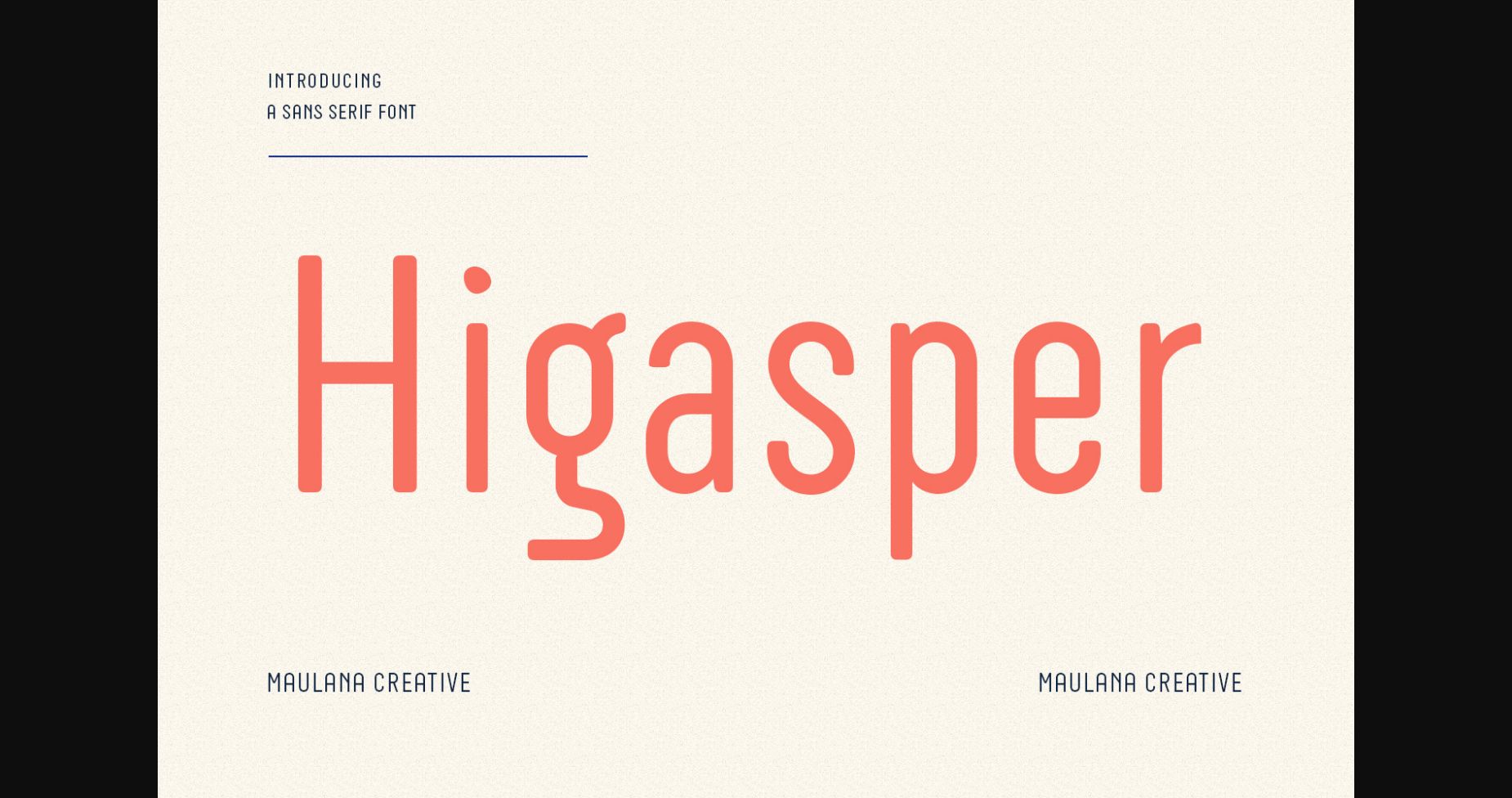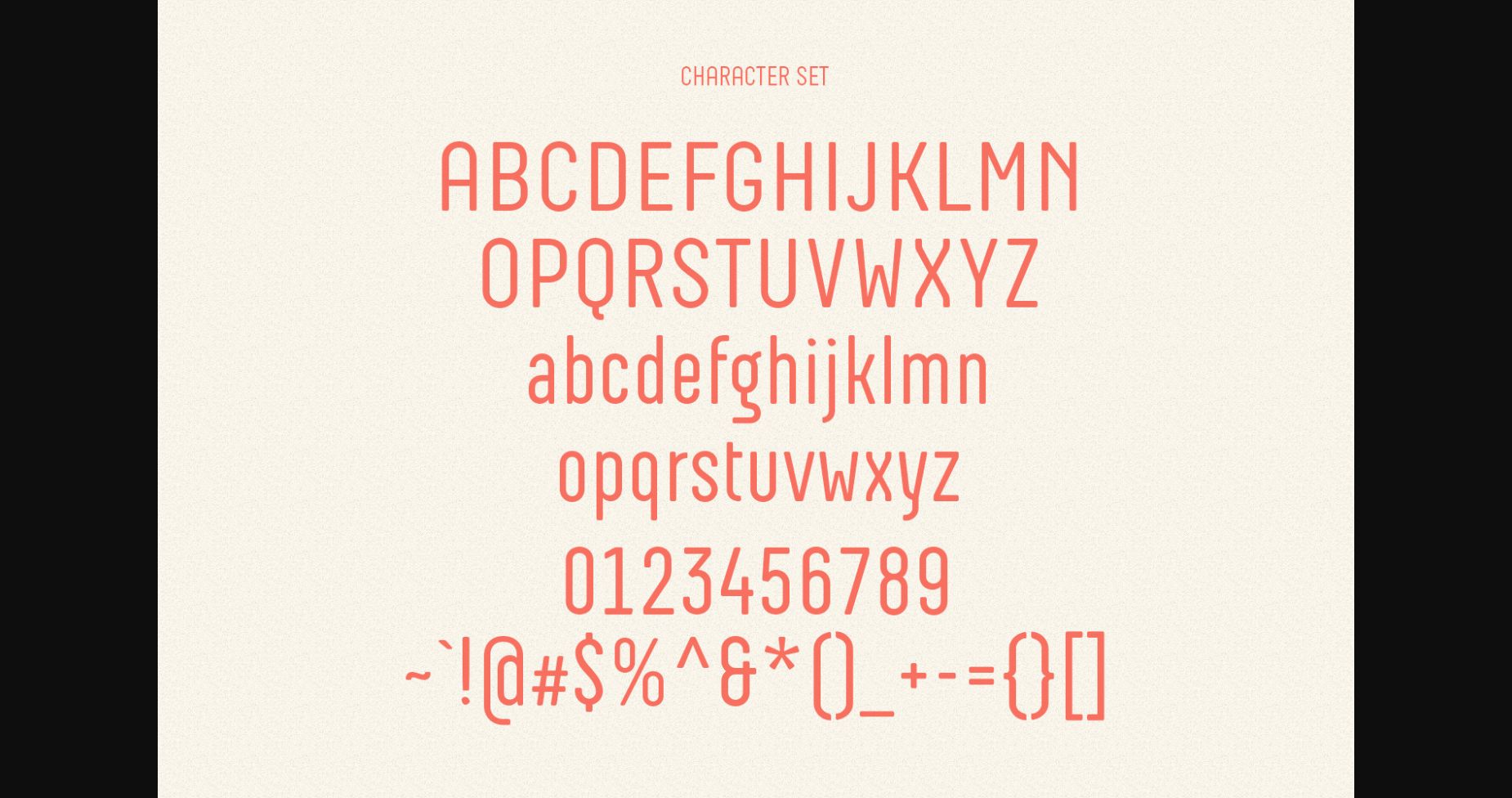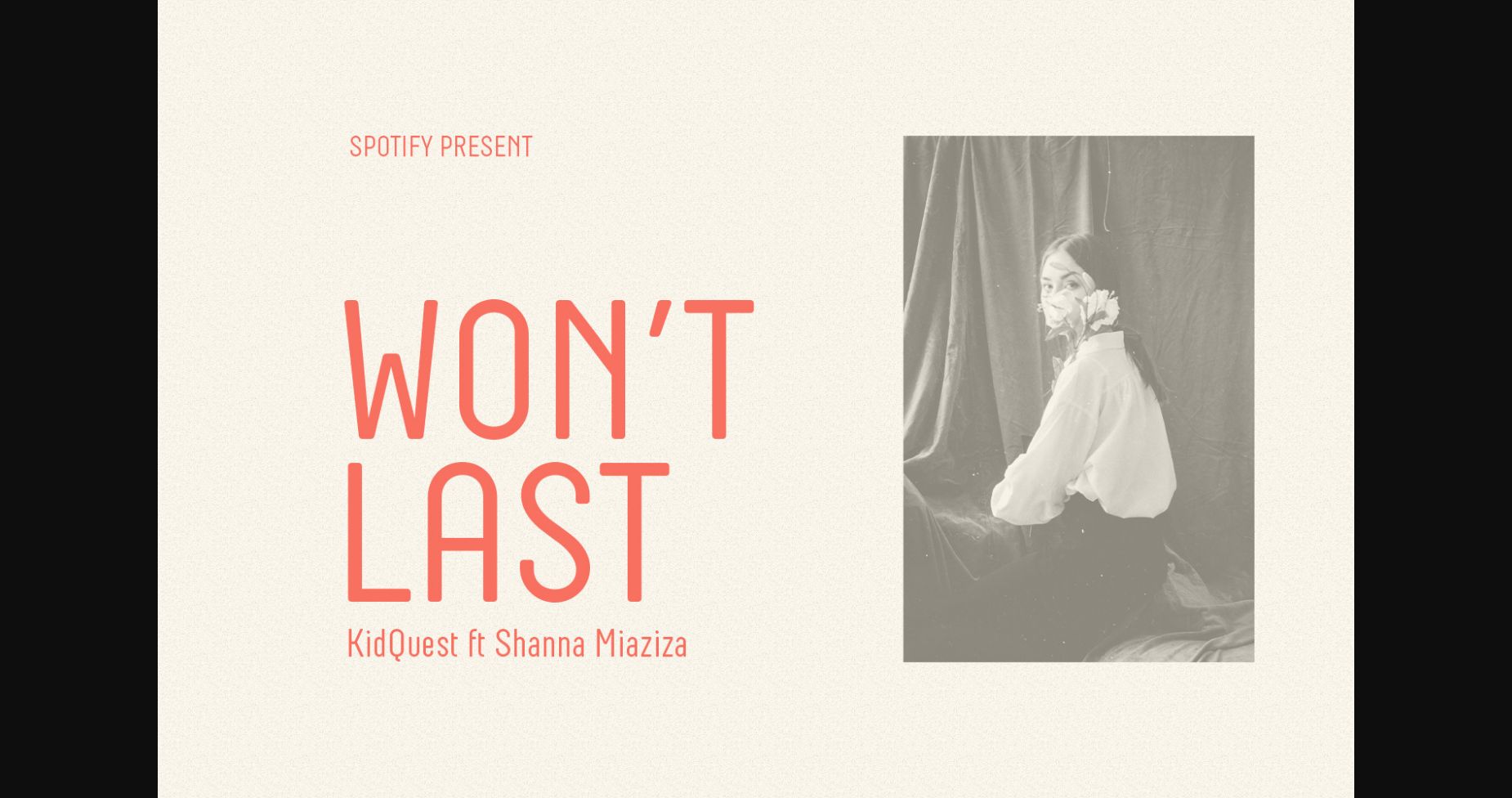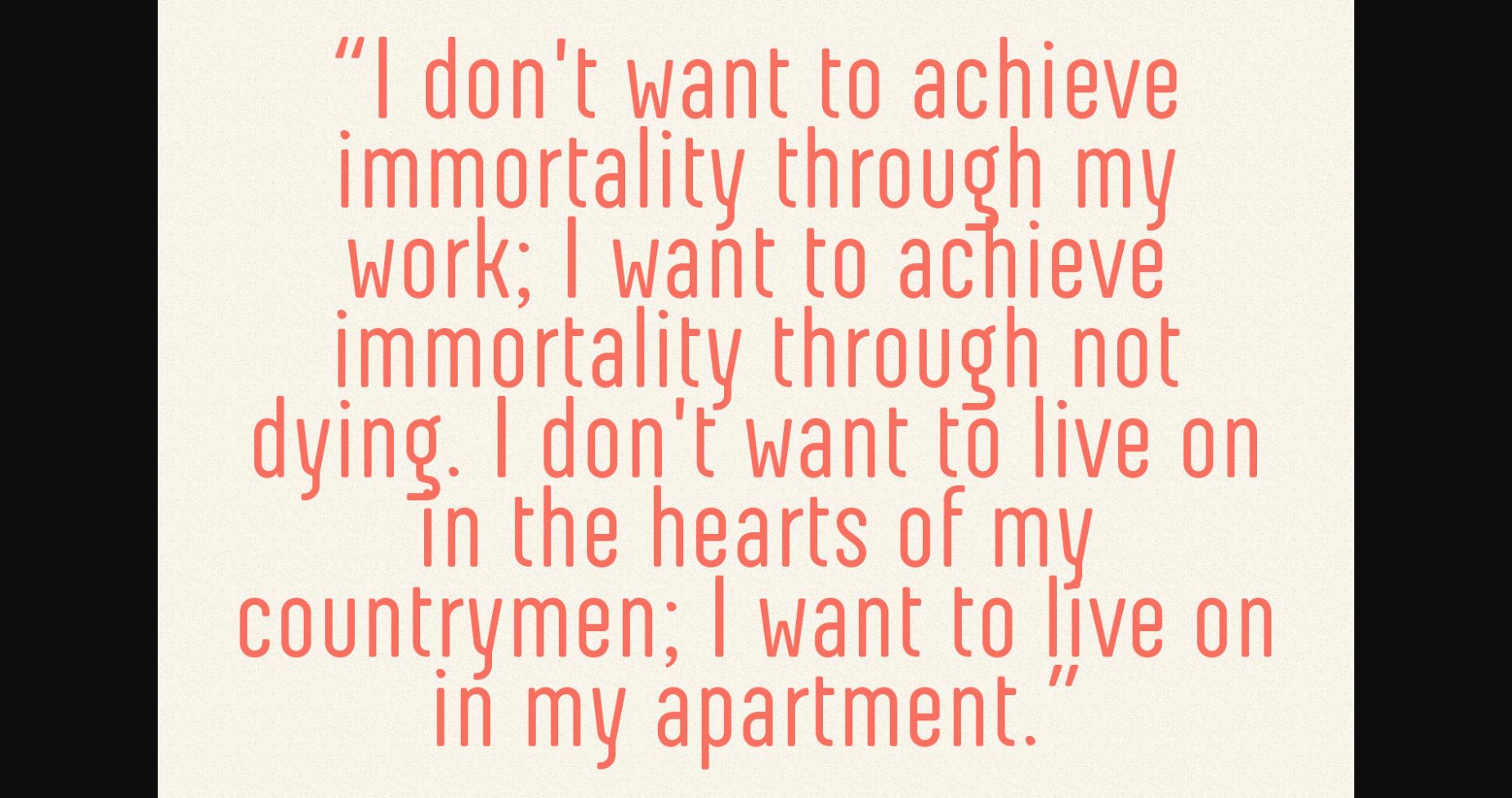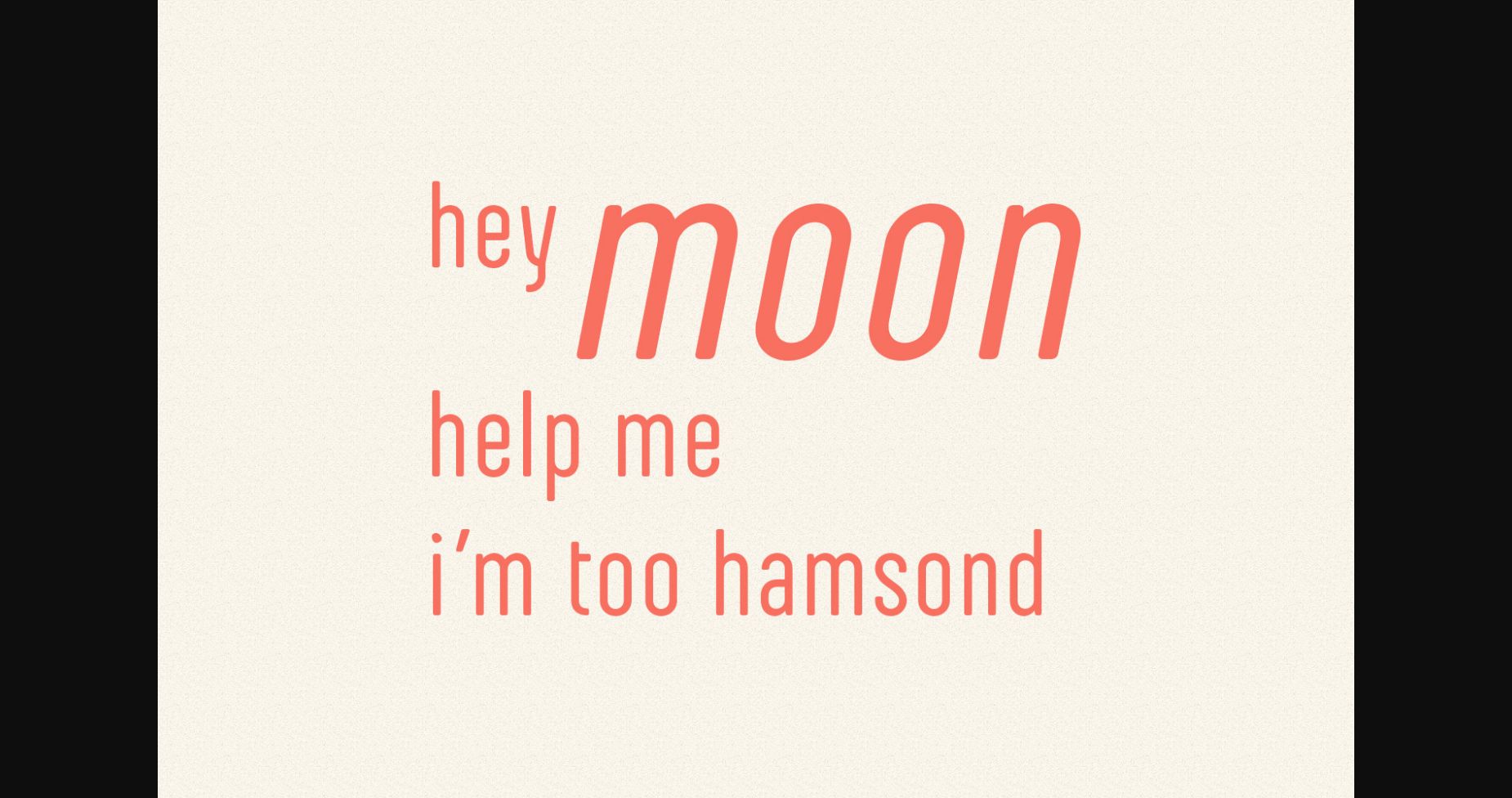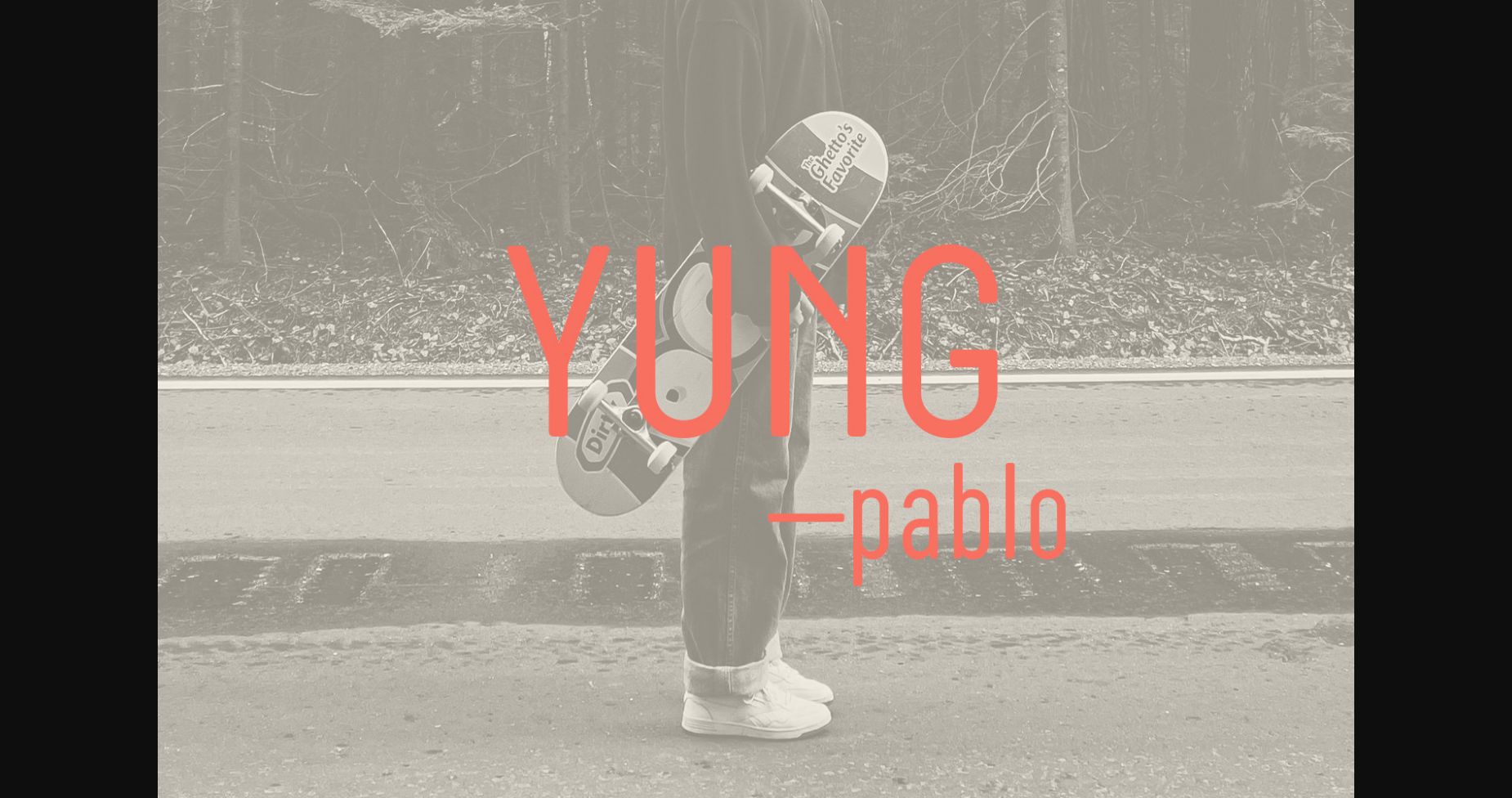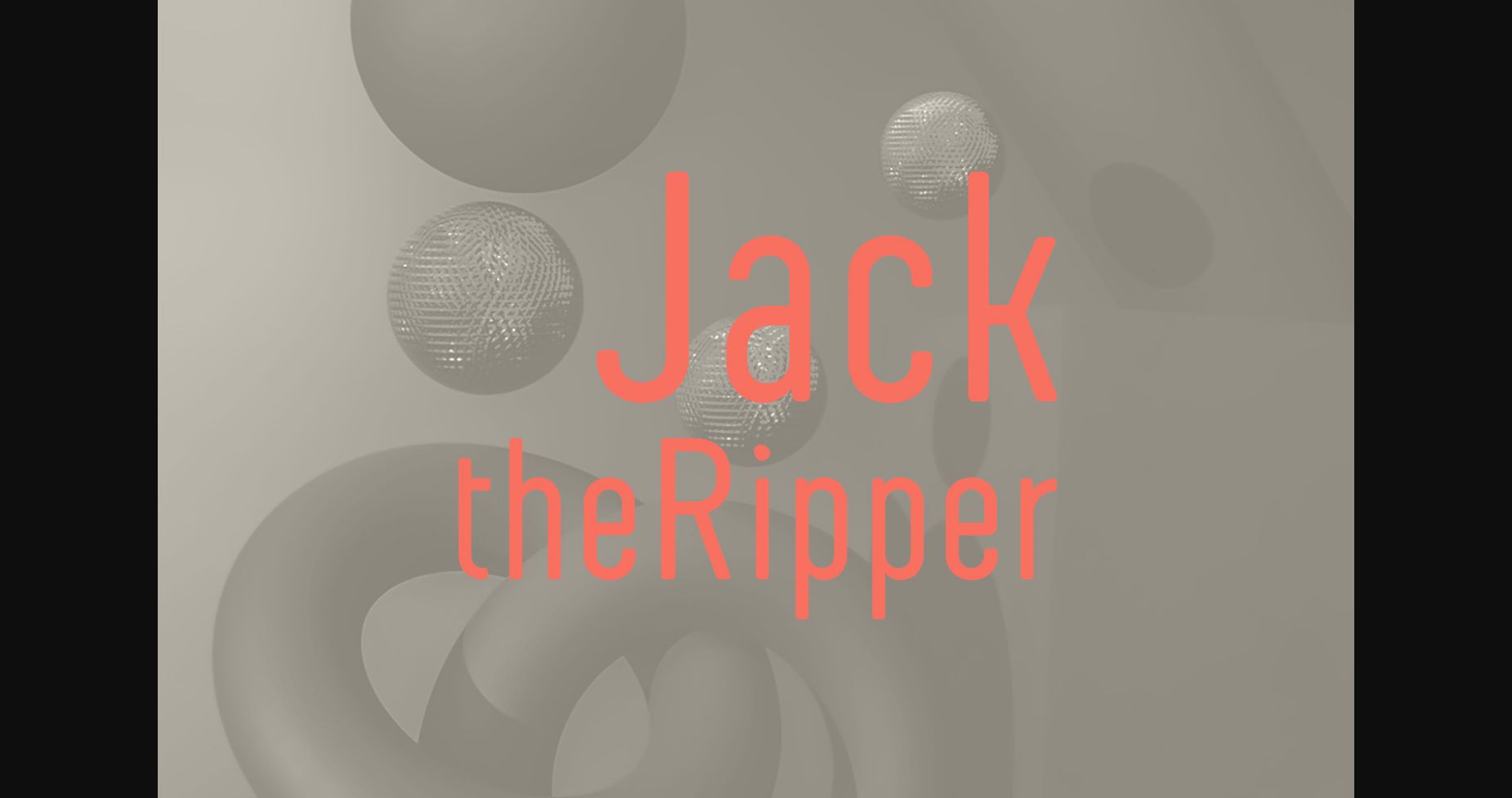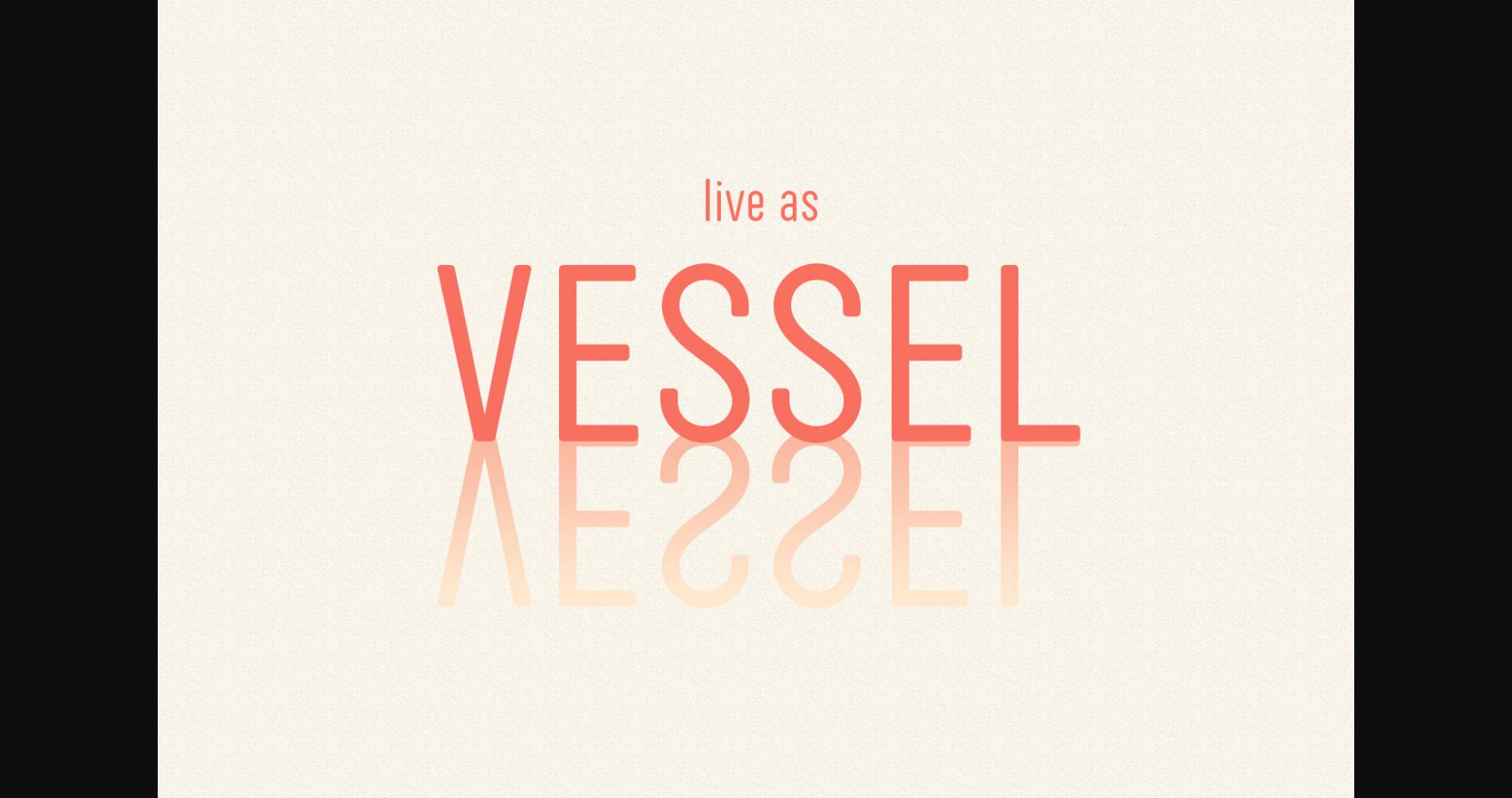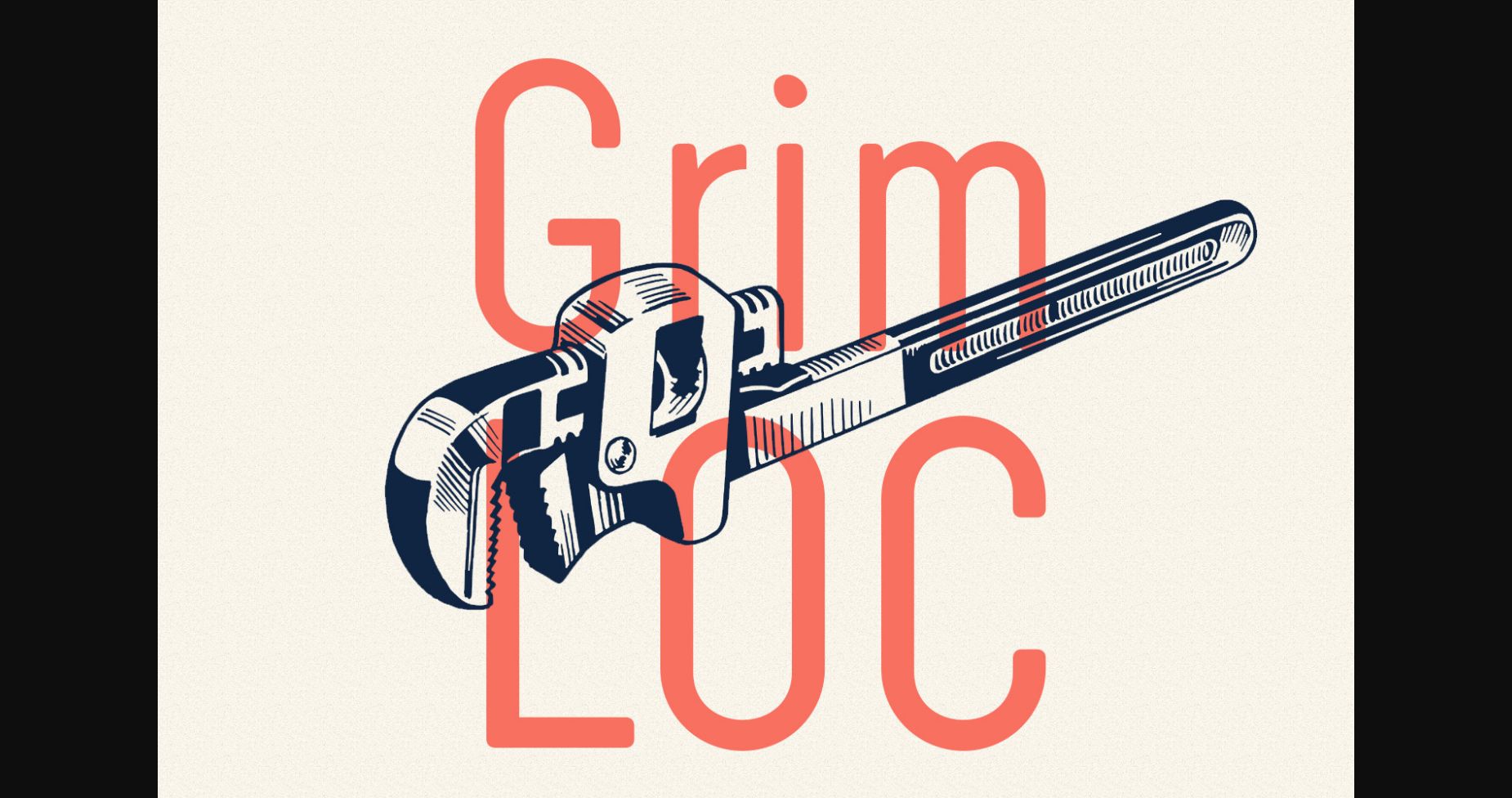
HomeSans Serif FontsHigasper Font Sans Serif Fonts Higasper Font FacebookXPinterestWhatsApp 1 of 11 ... Higasper Font Poster 2... Higasper Font Poster 3... Higasper Font Poster 4... Higasper Font Poster 5... Higasper Font Poster 6... Higasper Font Poster 7... Higasper Font Poster 8... Higasper Font Poster 9... Higasper Font Poster 10... Higasper Font Poster 11... About Higasper Font Higasper is a cool semi-monospace sans serif font. Incredibly stylish and versatile, this font is suitable for a wide spectrum of applications. DOWNLOAD NOW People also explored Lattinium Font Eclaire Font Hammond and Wheatley Font Astro Jack Font Bellie – A Handwritten Font Elegantly & Modest Duo Font Valentine Font Futurette FF Font Romantic Handmade Font 405 0 TagsHigasper Font Previous articleBigly FontNext articleKolka Font LEAVE A REPLY Cancel reply Comment: Please enter your comment! Name:* Please enter your name here Email:* You have entered an incorrect email address! Please enter your email address here Website: Save my name, email, and website in this browser for the next time I comment. Personal Use Free Starting Live Personal Use Free Read more about this font Mounets Personal Use Free Read more about this font Cleopatra Font Personal Use Free Read more about this font Beautiful Personal Use Free Read more about this font BLOG Elegant Wedding Invitation Fonts – Handwritten & Script Fonts Elegant Wedding Invitation Fonts Your wedding day is one of the most important moments of your life, and every detail matters—including your invitation design. Our... The 10 Best Handwriting Fonts to Add Personality to Your Designs Transform Your Website: Elevate Your Typography with 7 Best Web Font Generators Modern Sans-Serif Fonts That Brands Love in 2025